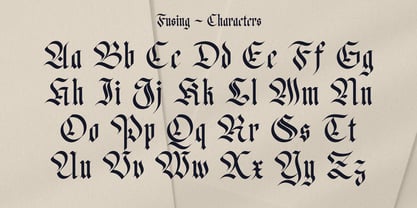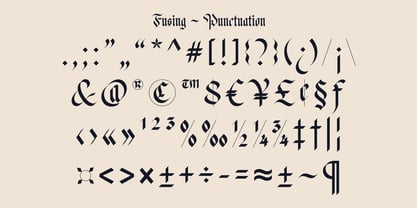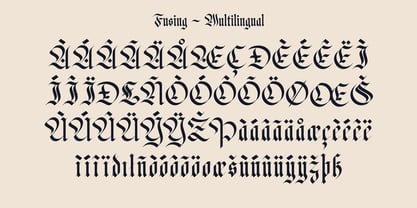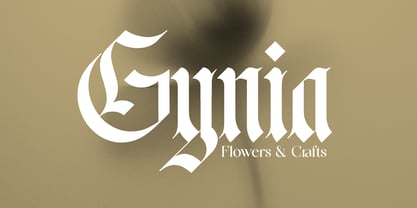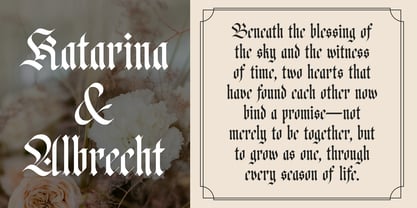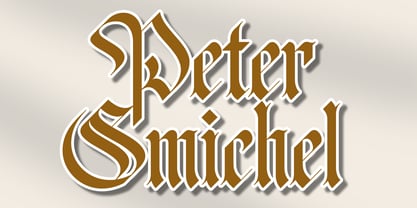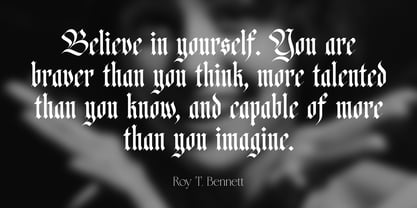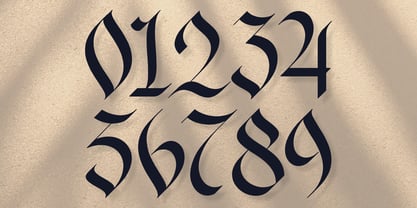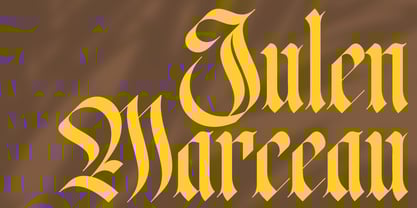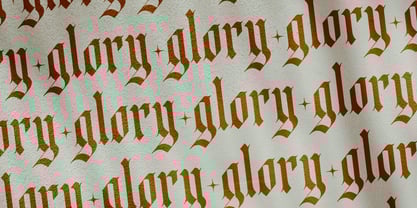
Fusing
von Sign Studio
Die Schriftfamilie Fusing wurde von Sugi Yanto entworfen und von Sign Studio veröffentlicht. Fusing enthält 1 Stile.
Fusing – Bold Blackletter Simplicity
Fusing is a contemporary blackletter typeface inspired by European calligraphic traditions. With clean contours, angular tension, and consistent rhythm, it delivers gothic expression without ornamental distractions. Ideal for headlines, posters, and typographic art that seek bold character and historic depth.